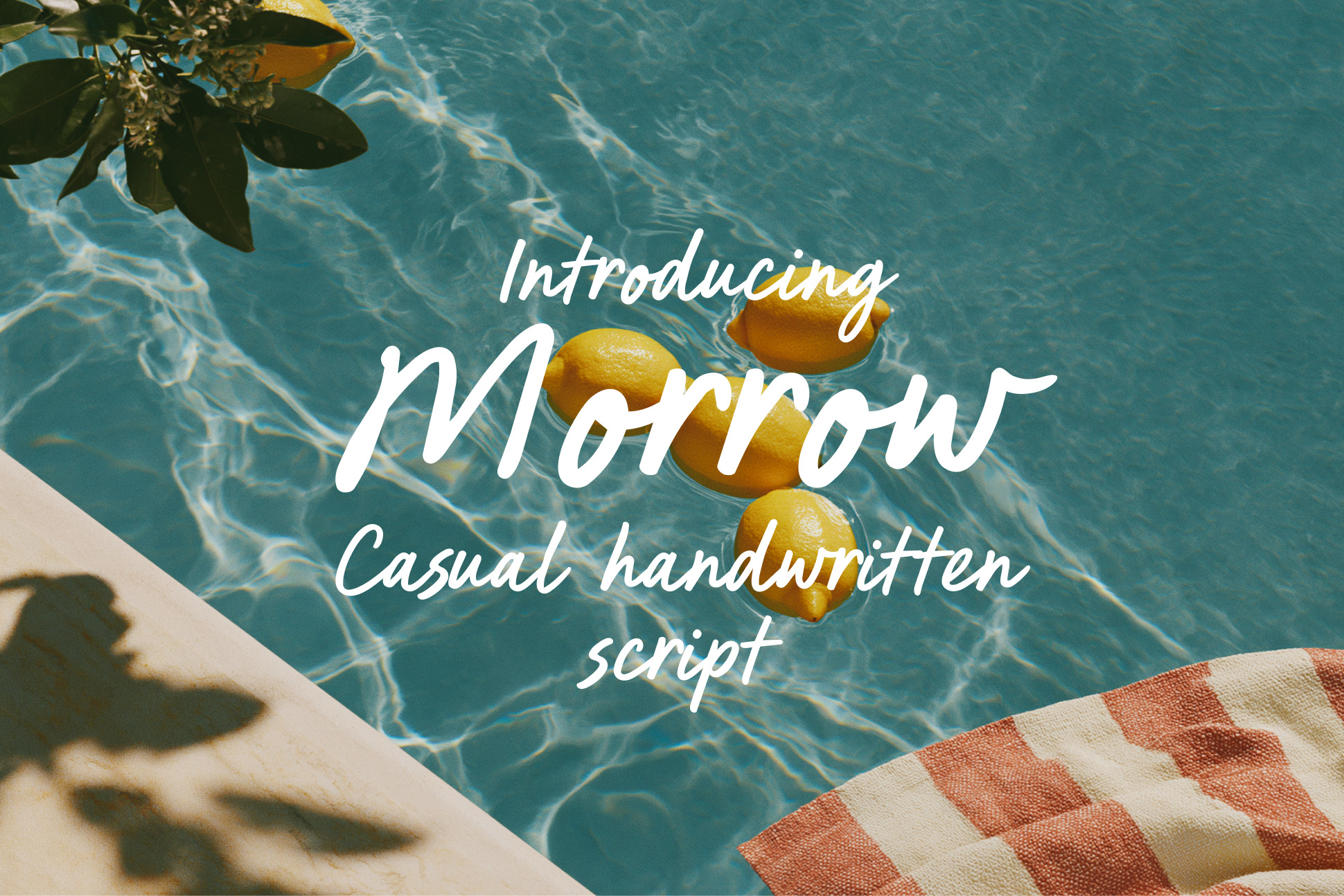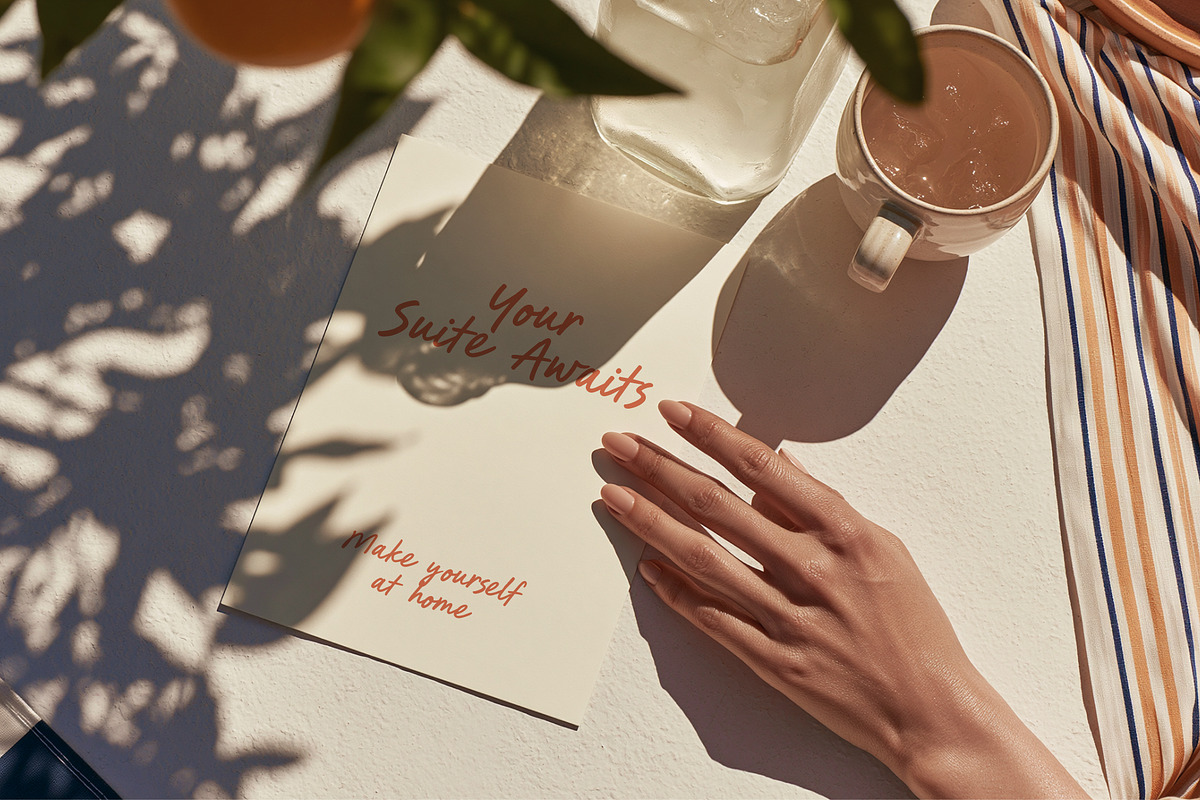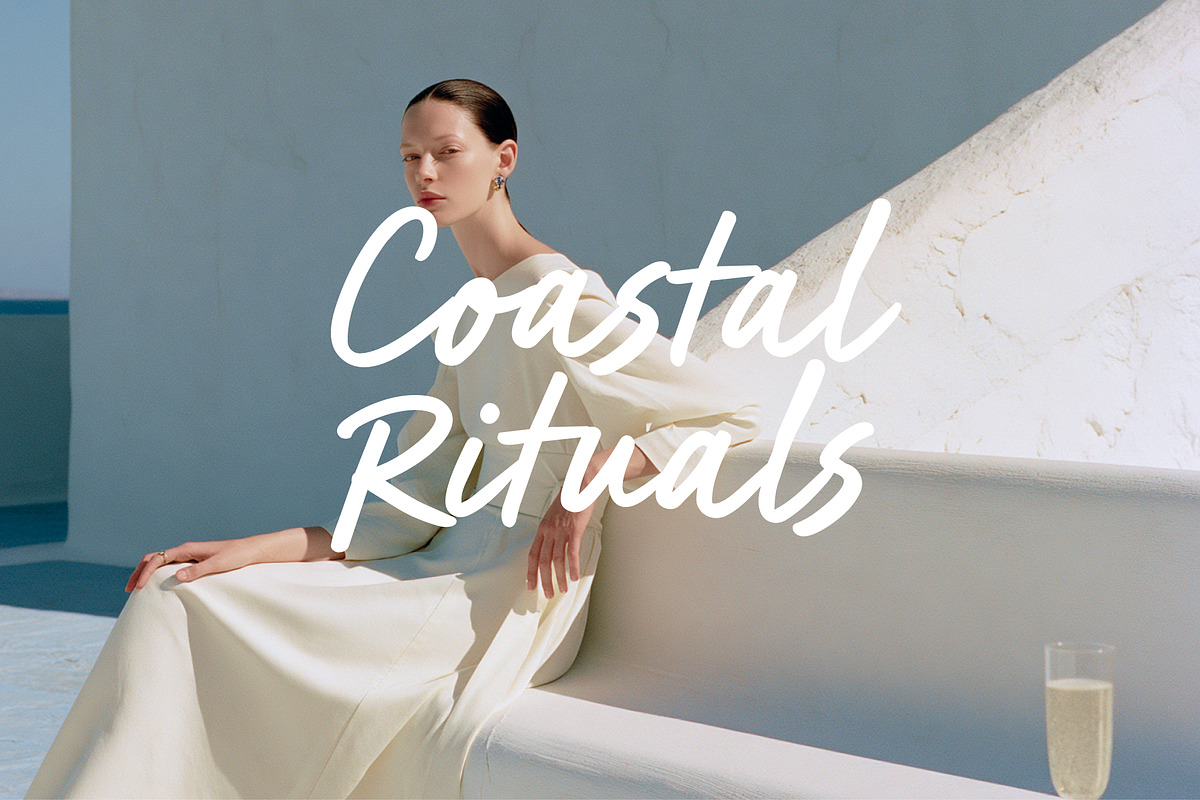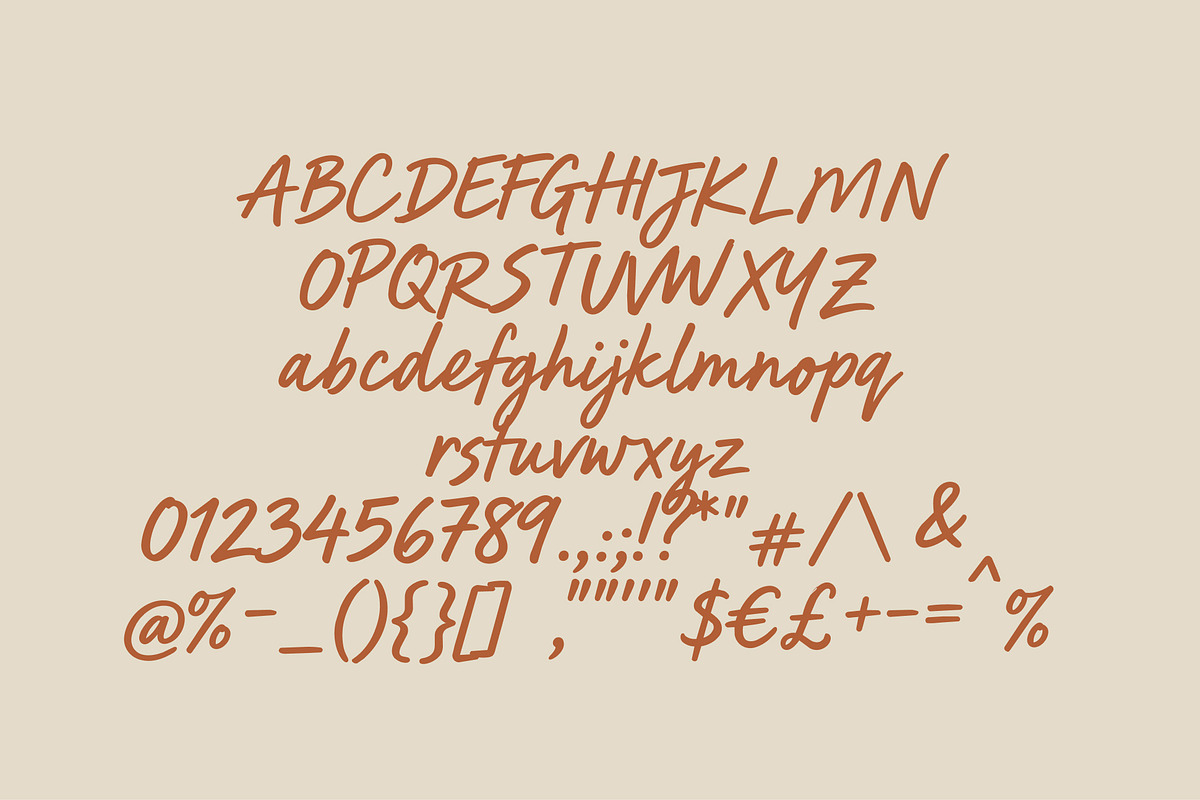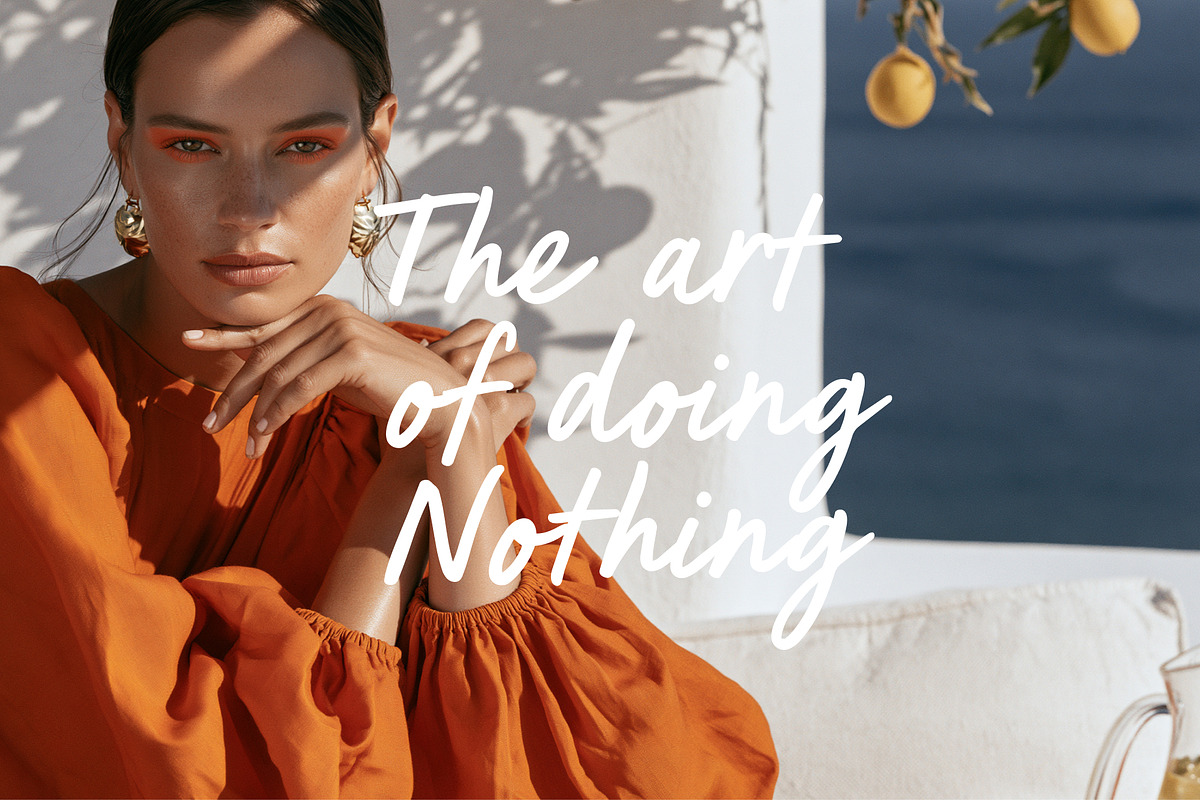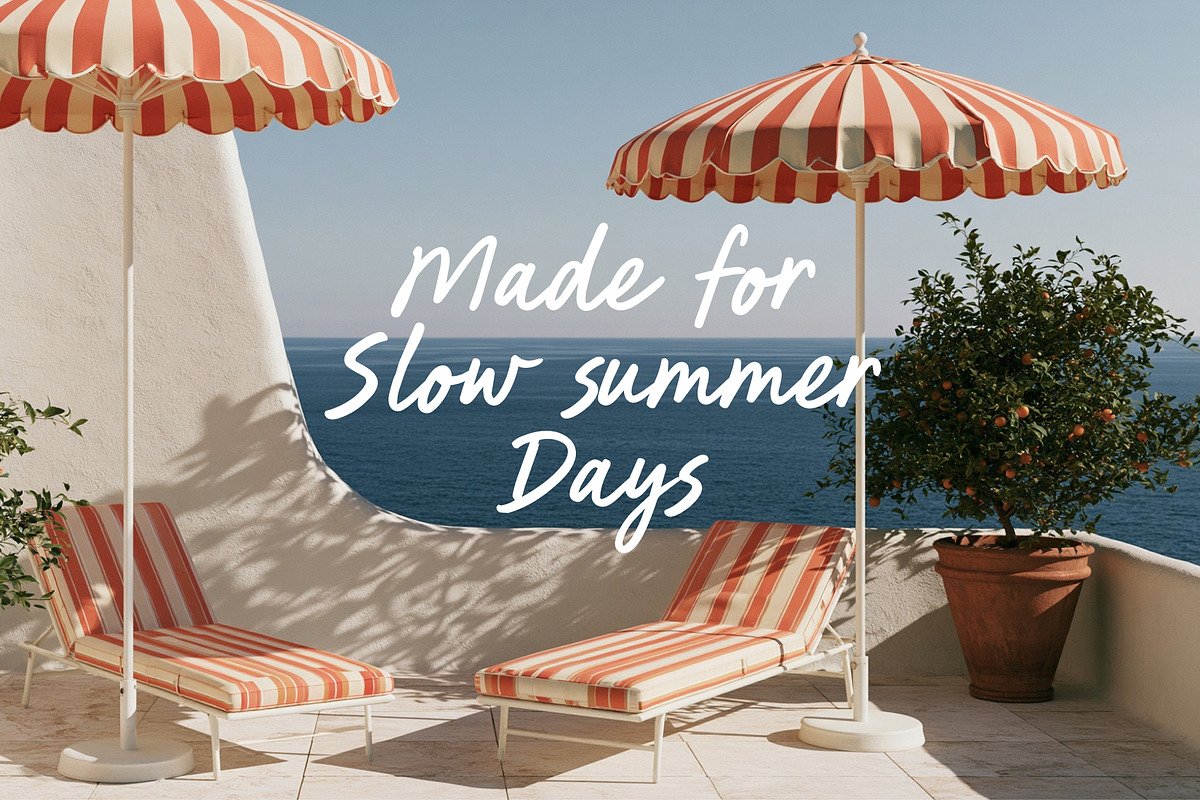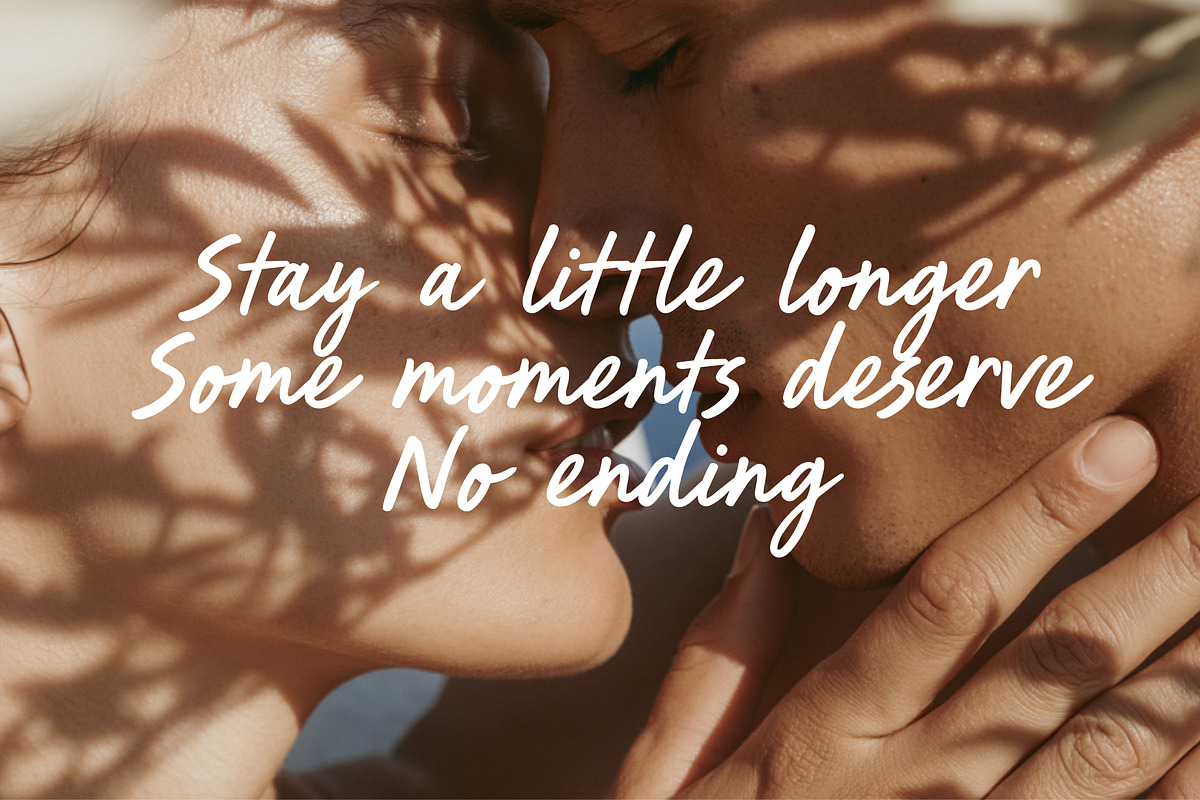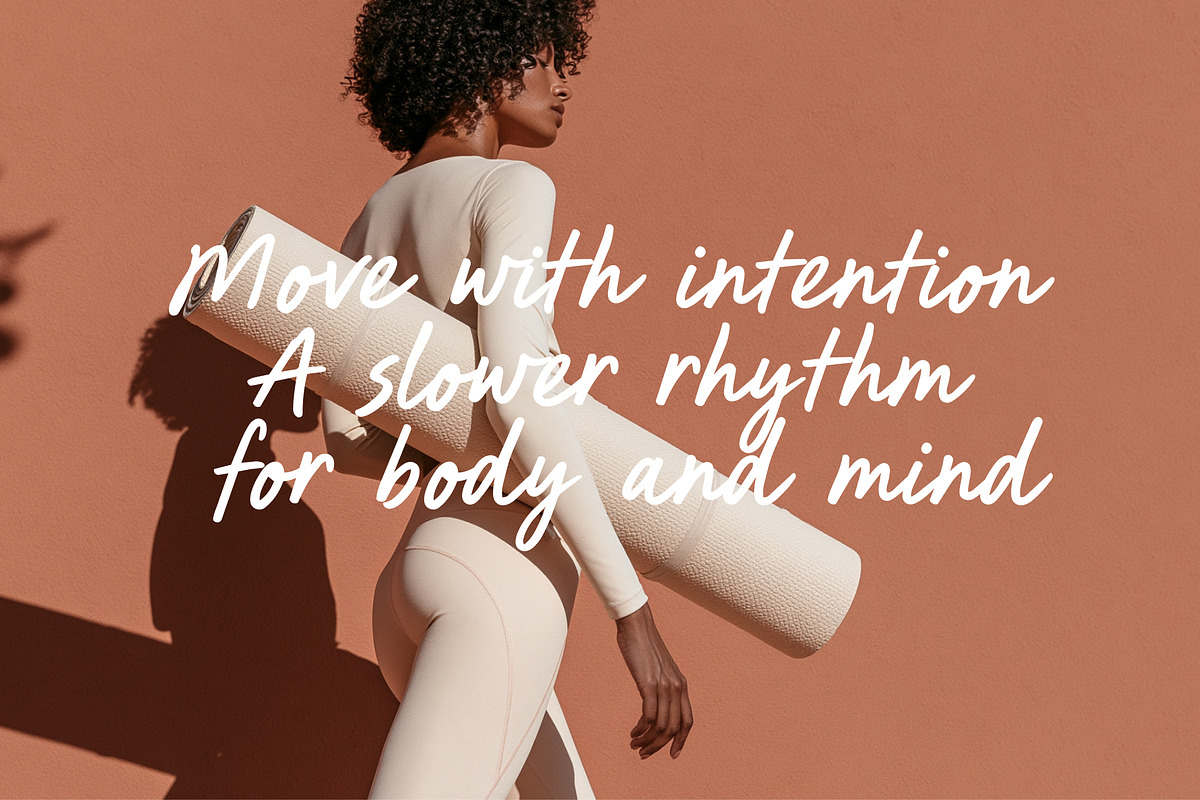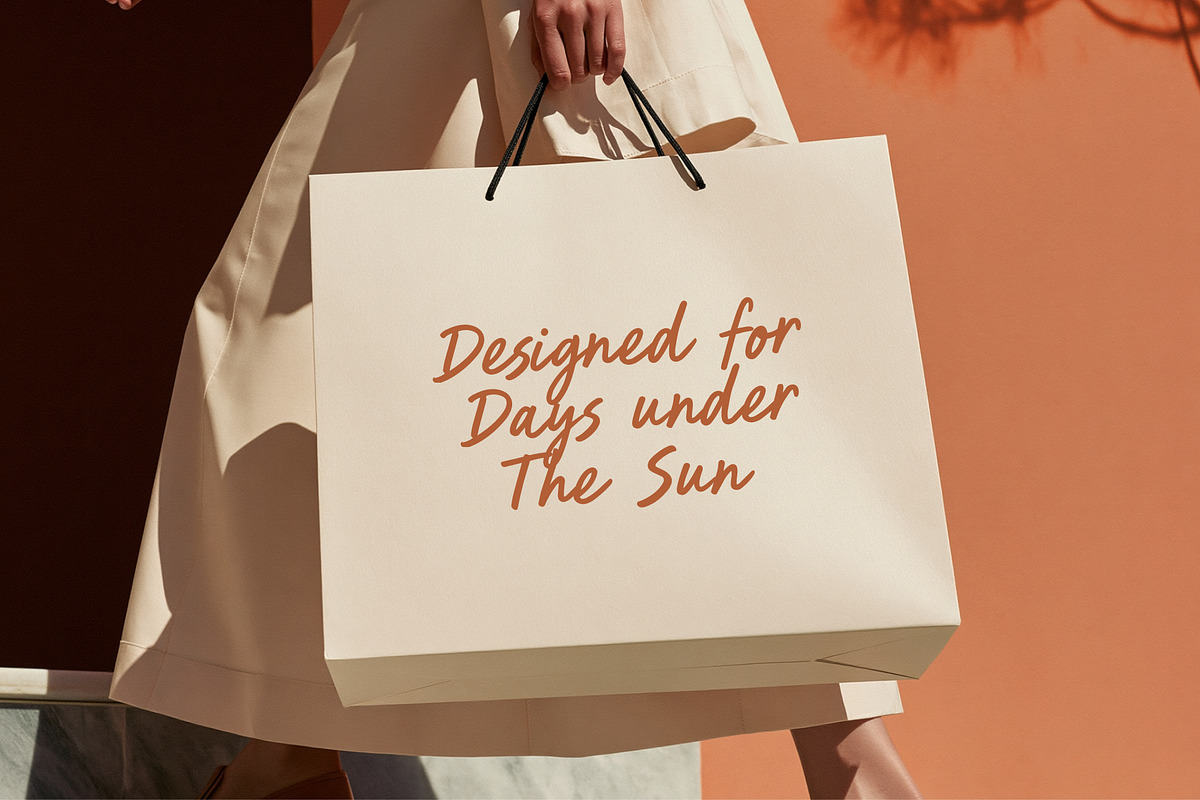
Morrow Handwritten Script Font
Morrow is an expressive handwritten brush font with dynamic strokes and a natural, confident rhythm. Its casual character makes every composition feel personal, energetic and authentic.
Perfect for branding, packaging, greeting cards, social media, editorial layouts, apparel, photography and lifestyle projects.
Uppercase and lowercase English alphabet
Numbers from 0 to 9
Standard punctuation marks
Common symbols and currency signs
Natural handwritten brush style